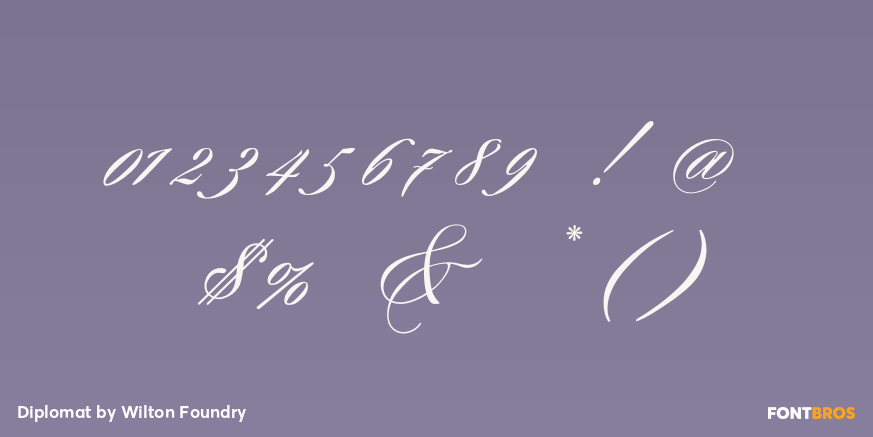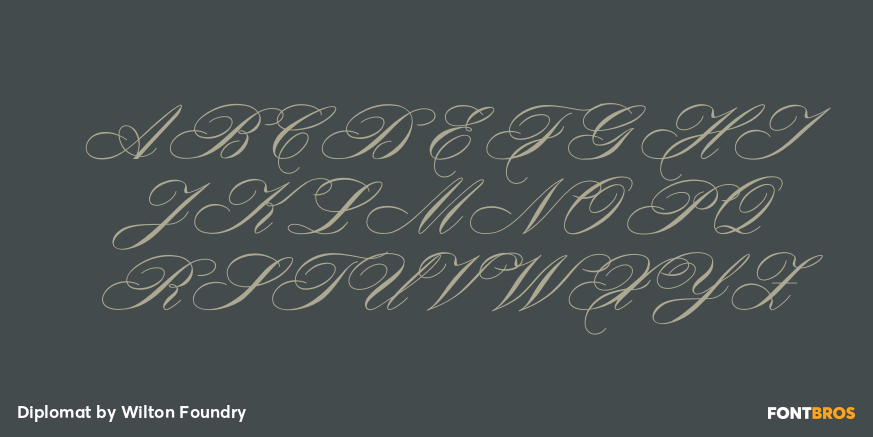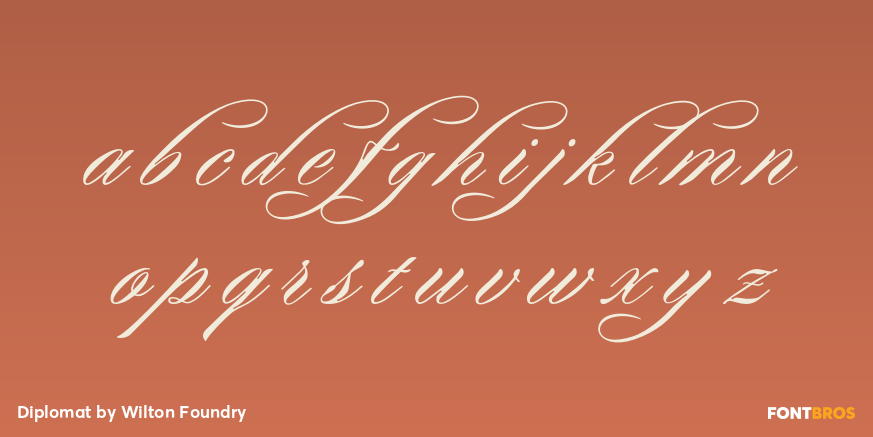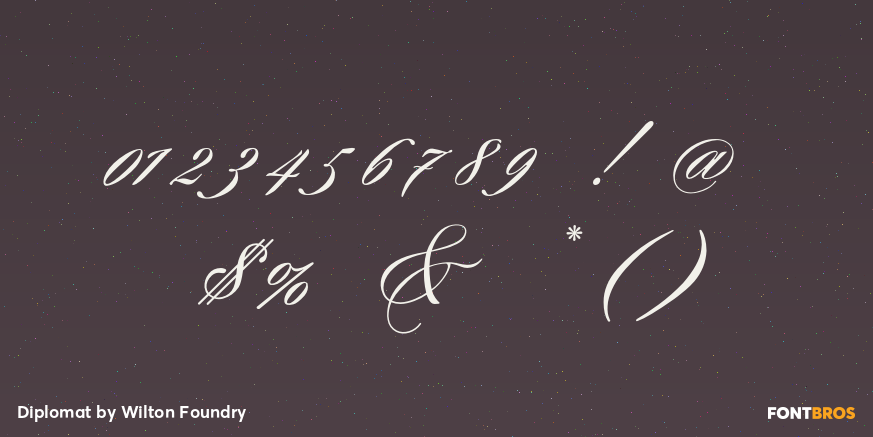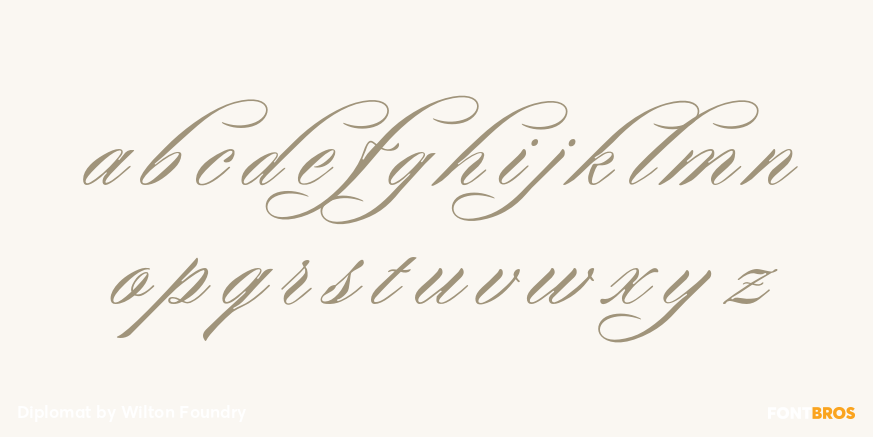
Diplomat
Font Family by Wilton Foundry
Diplomat was designed in response to Portfolio's very ornate script - a much more legible and formal script that has plenty of flare but without the elaborations. Diplomat creates a prestigious presentation useful for Certificates, Wedding Invitations, Corporate Identities, Brochures, and Headlines.